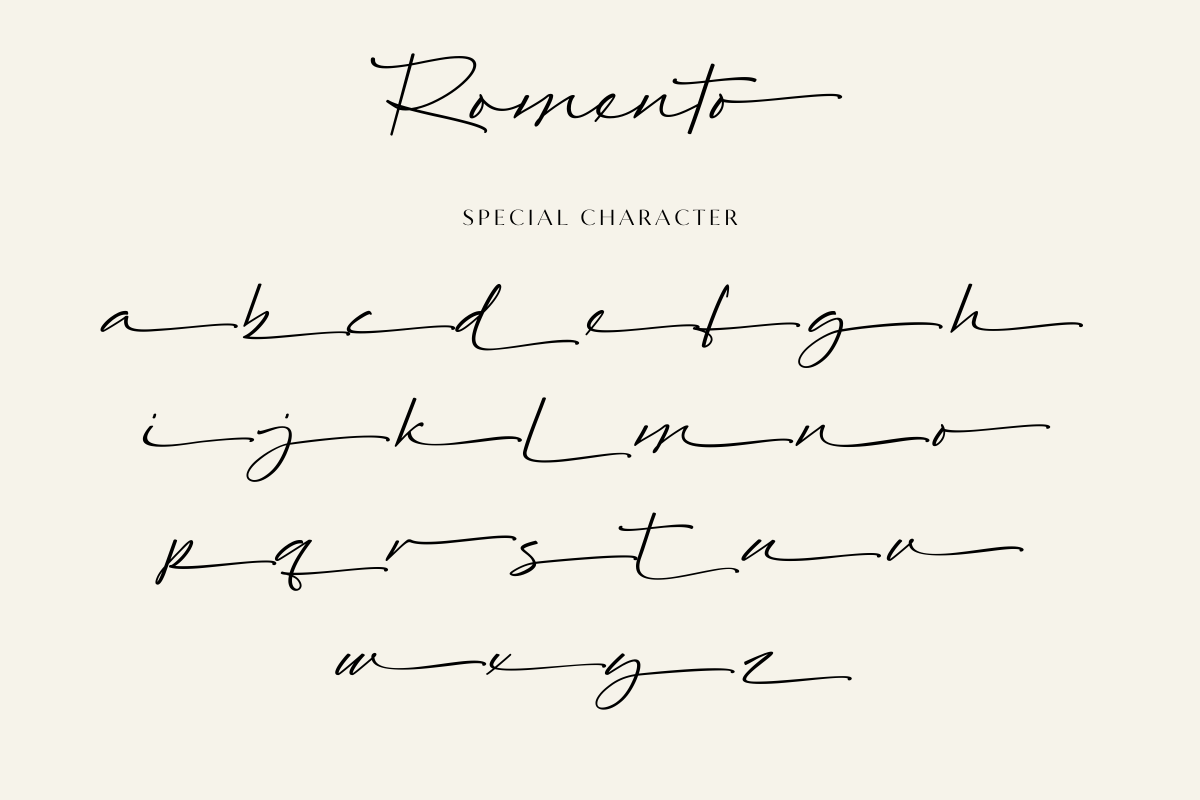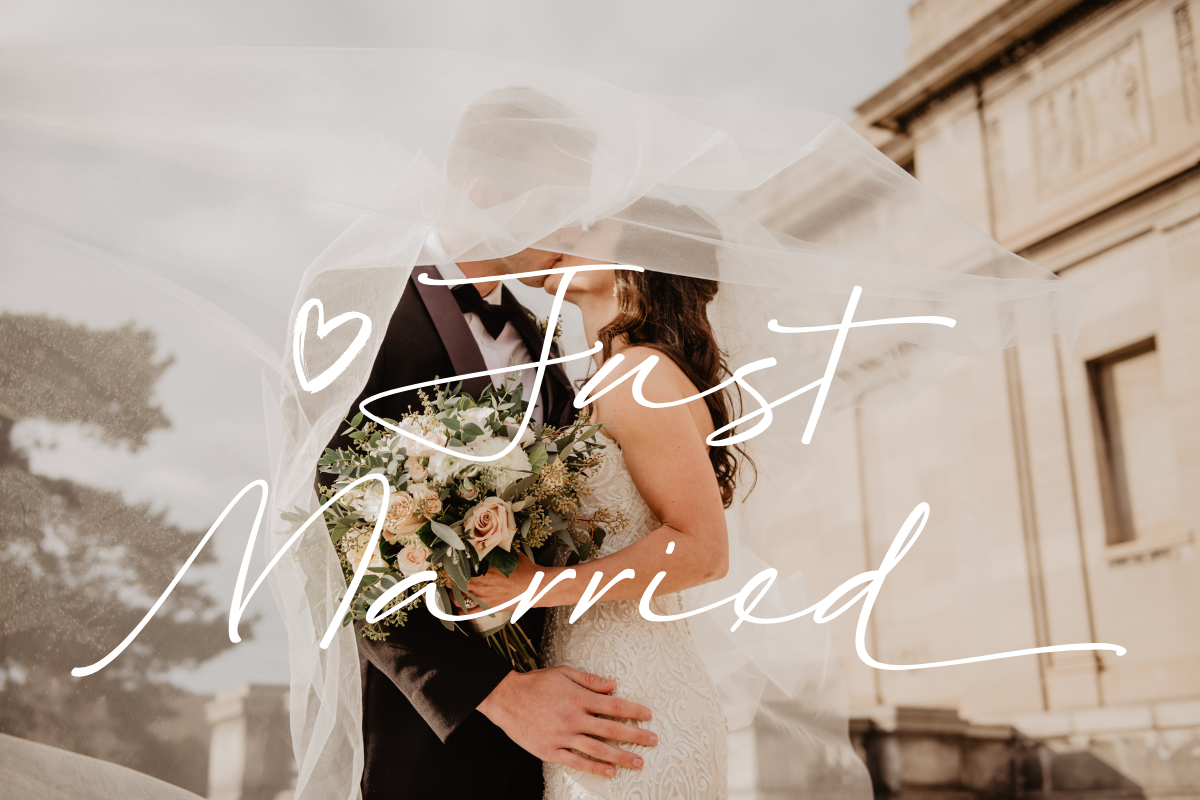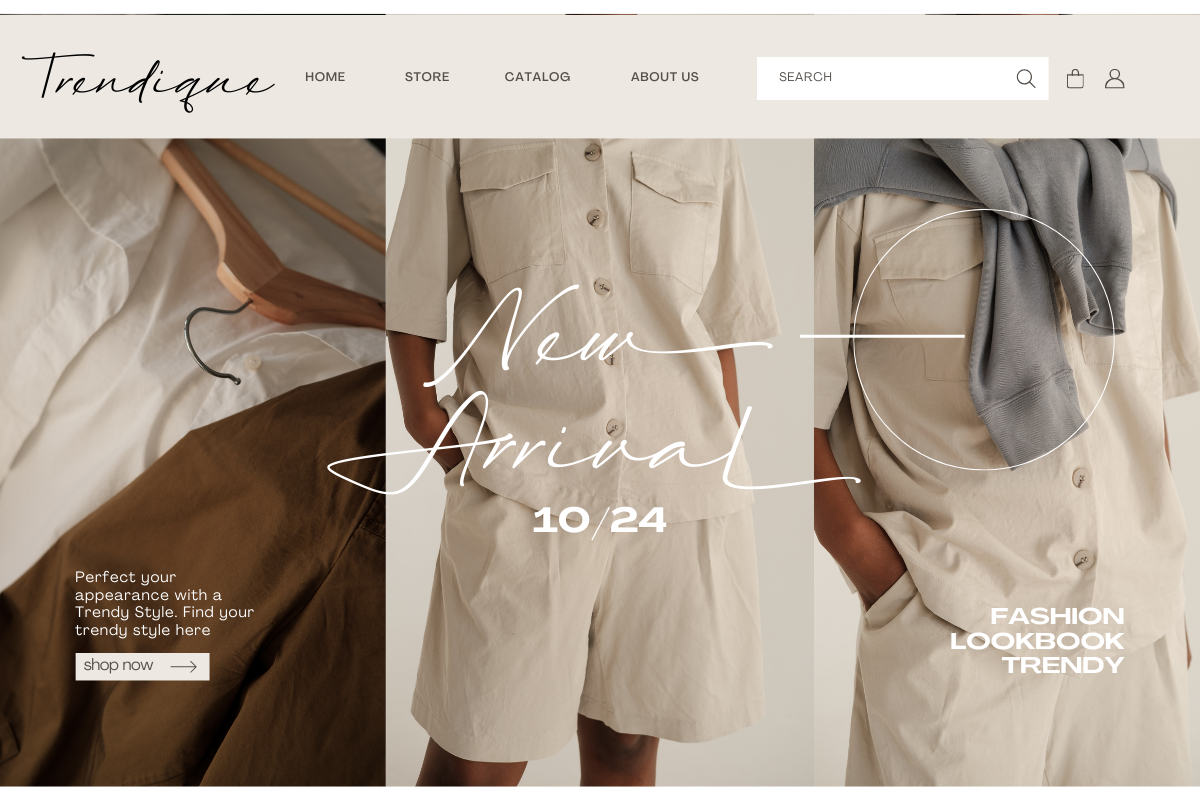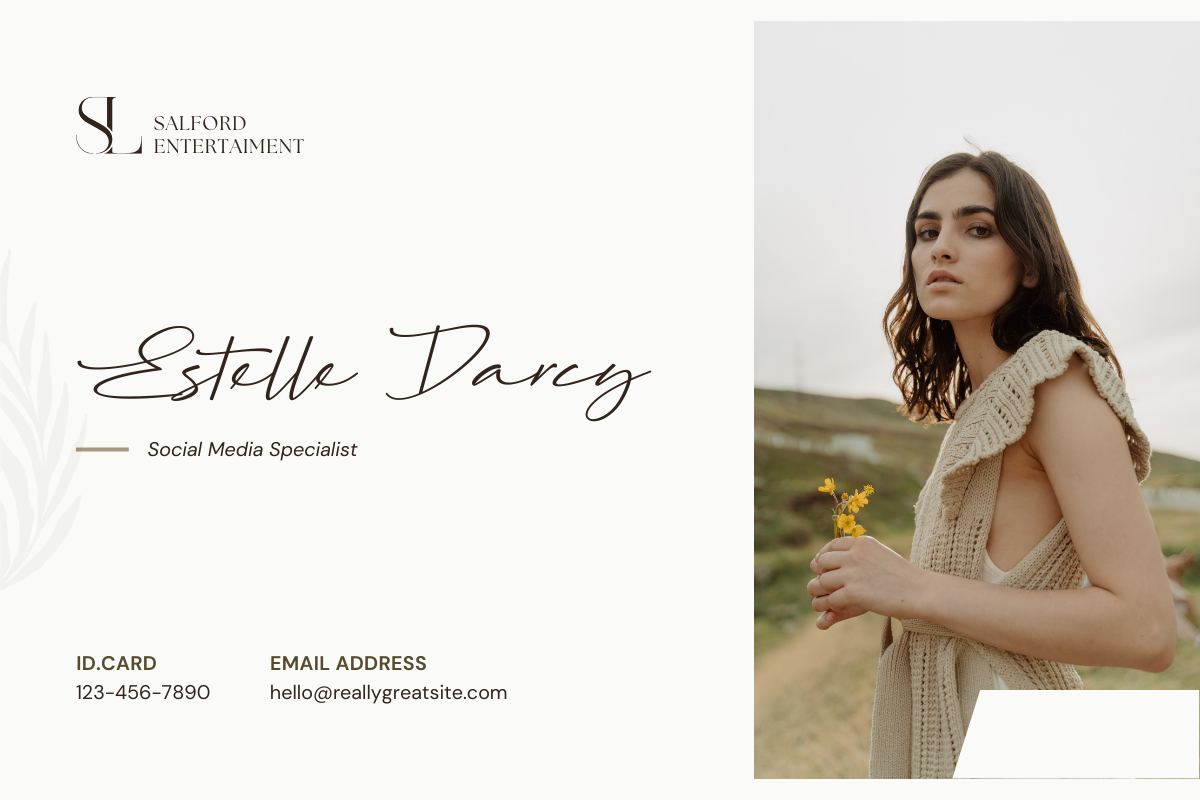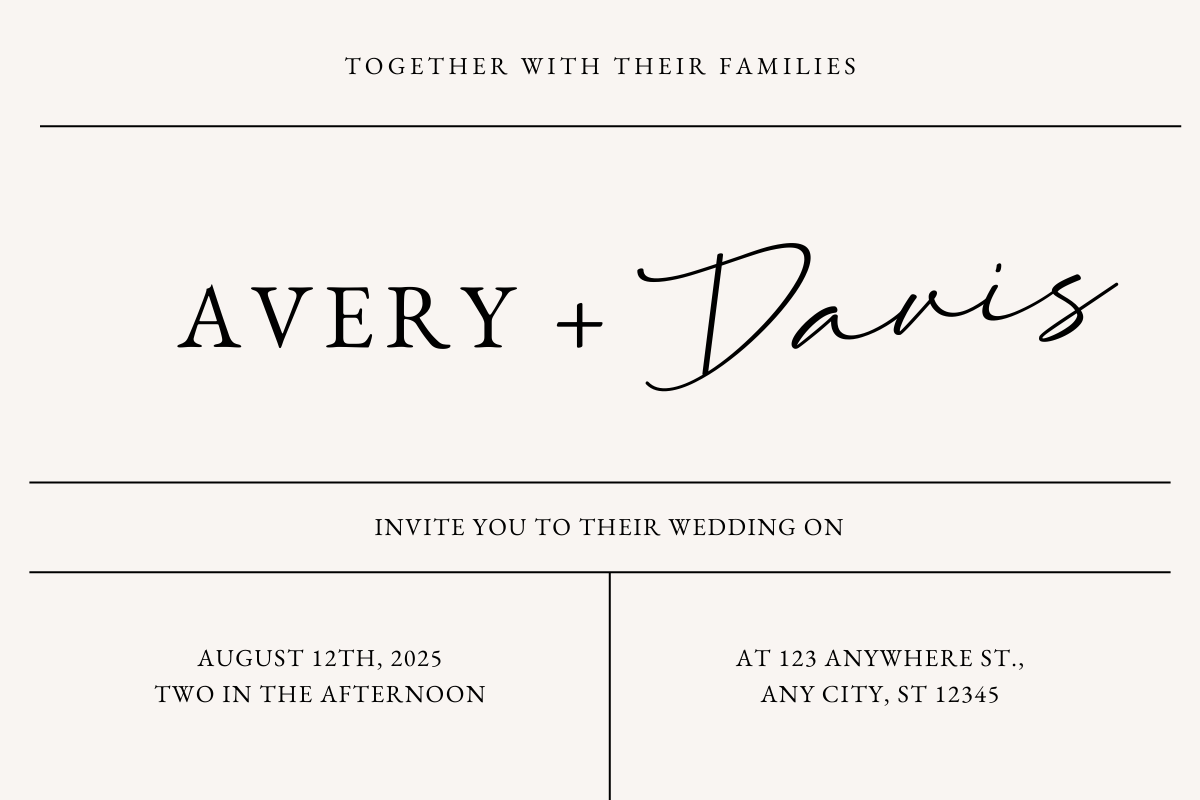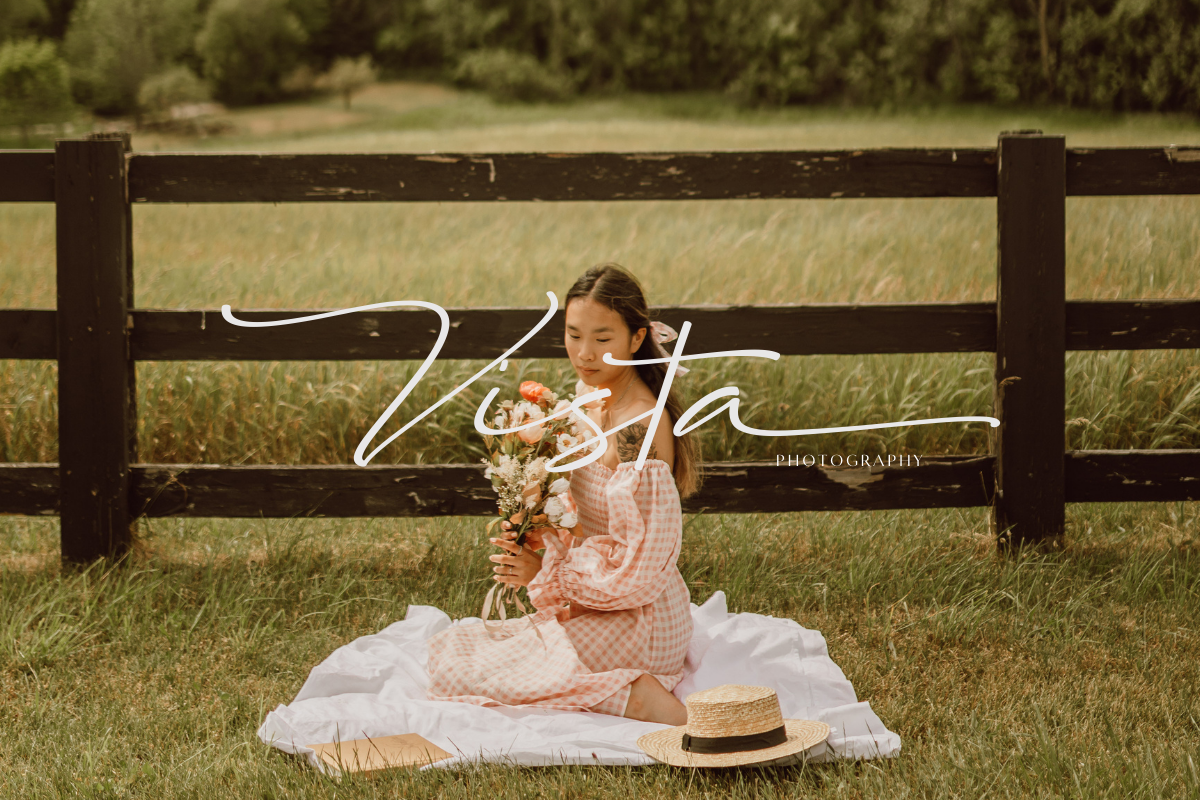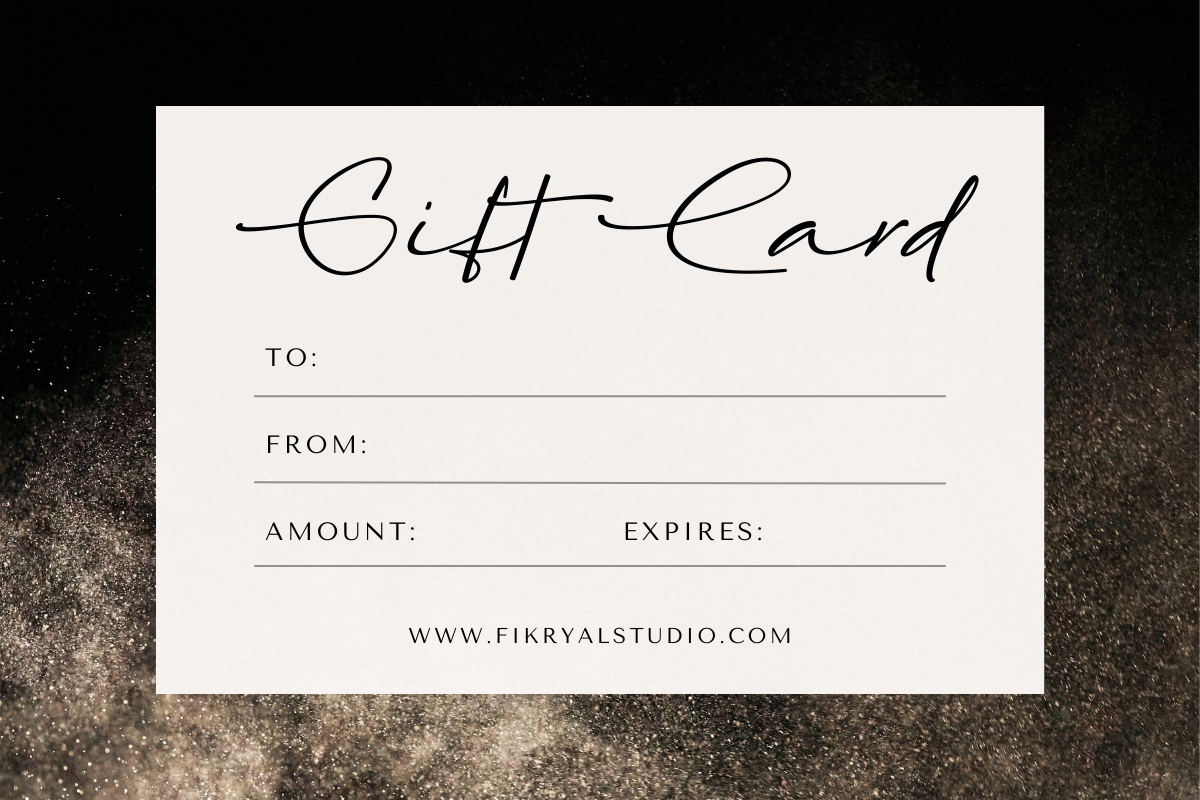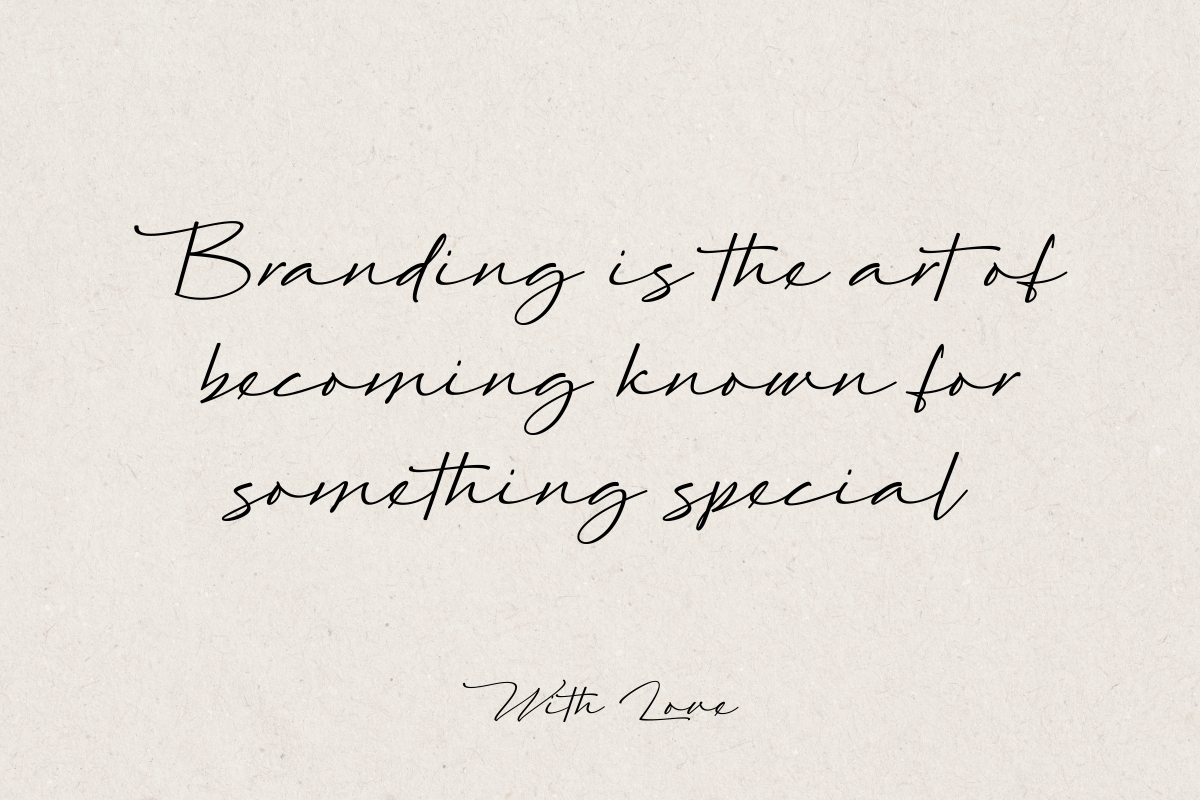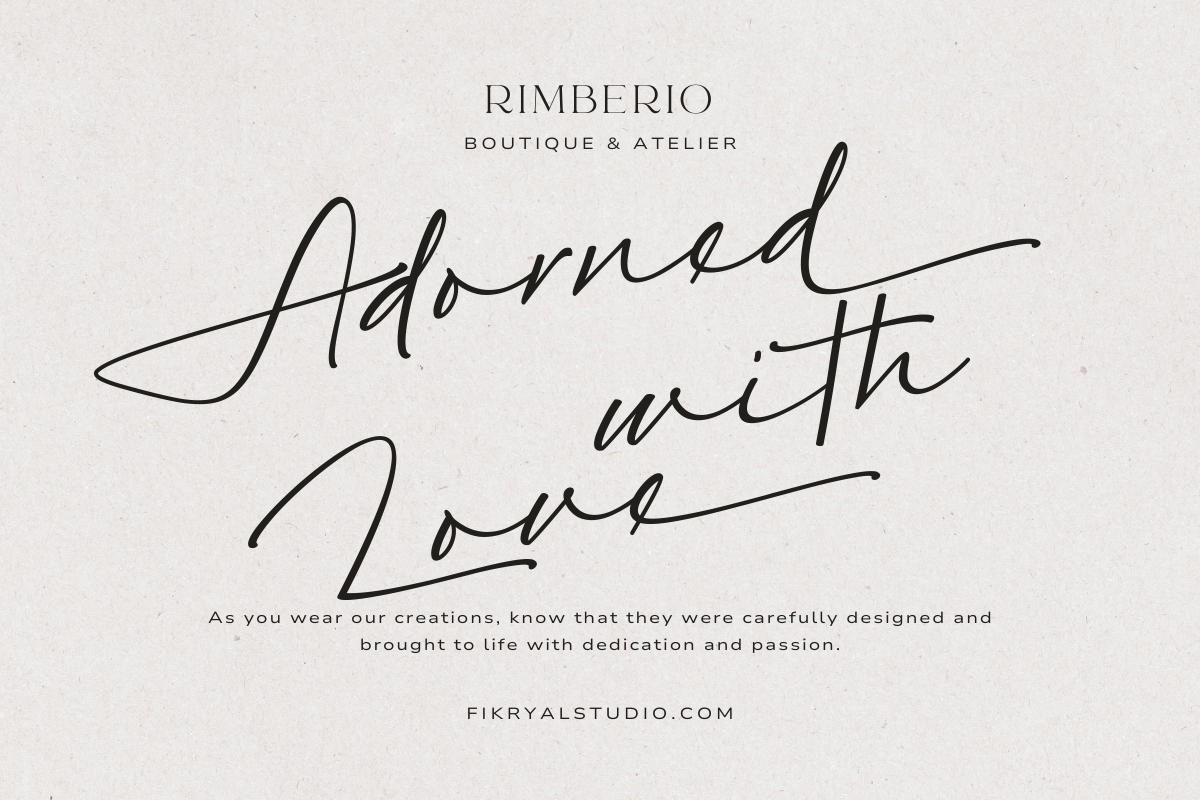
Romento – Modern Signature
Romento Modern Signature Font is a typeface that blends elegance and modernity, creating a unique and luxurious signature look. With its elegant design, Romento adds a touch of classic while remaining in line with contemporary styles. This font boasts an additional feature in the form of swashes for lowercase characters, providing an artistic and captivating touch to every design.
The special swashes of alternate characters for lowercase letters offer additional flexibility in your design creativity. By utilizing these swashes, you can add decorative elements and a personal touch to the text, creating designs that are more engaging and exclusive. Romento is not just a font; it is a digital handwritten art that brings a personal signature feel with a contemporary touch highly favored in the world of modern design.
Enhance the quality of your graphic designs, logos, marketing materials, or other creative projects with the captivating Romento Modern Signature Font, featuring special swash characters to elevate your typography aesthetics.